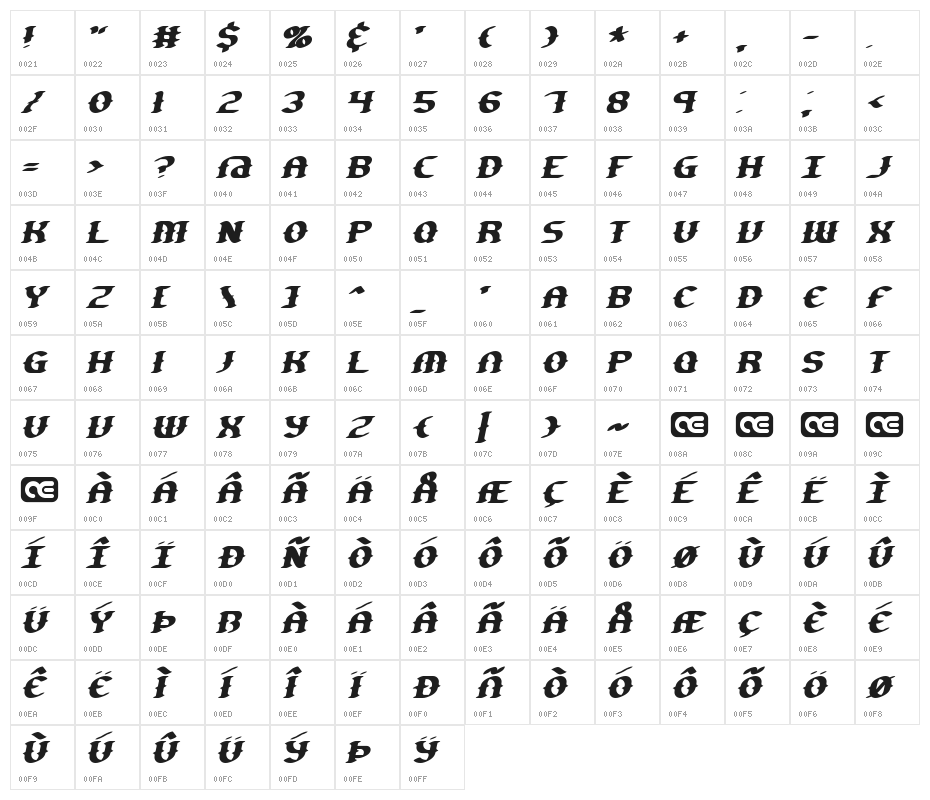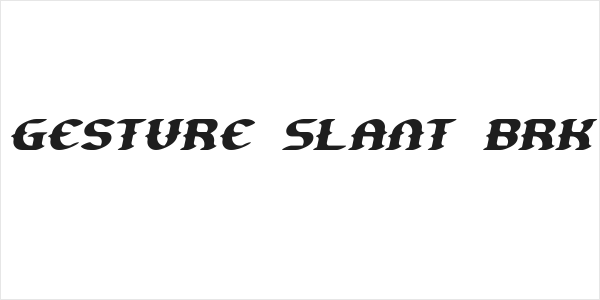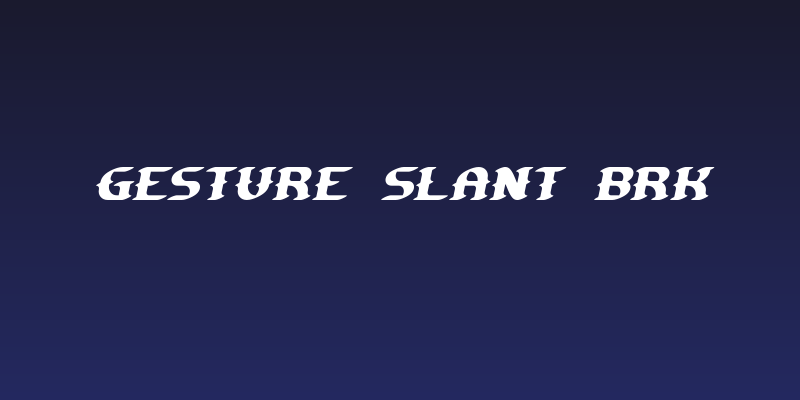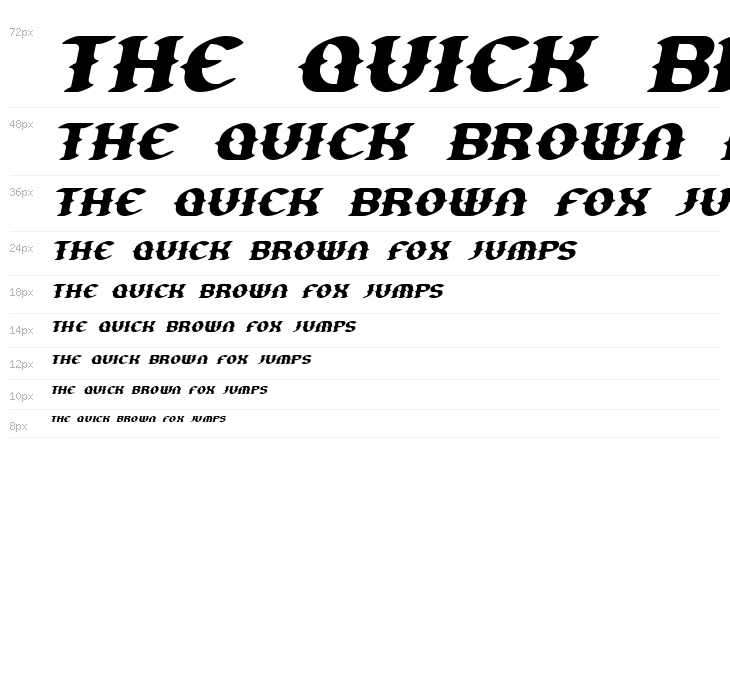
Gesture Slant BRK Font
Gesture Slant BRK Description
This font features a bold and dynamic style with a distinct slant, giving it a sense of movement and energy. The characters are heavily stylized with sharp, angular edges and a consistent thickness throughout, creating a strong visual impact. The uppercase and lowercase letters maintain a cohesive design, while the numbers and special characters complement the overall aesthetic. The font's unique appearance makes it suitable for attention-grabbing headlines and creative projects where a bold statement is desired.
| Proposed Projects | Ideal for posters, logos, branding, and any design project that requires a bold and dynamic typeface. |